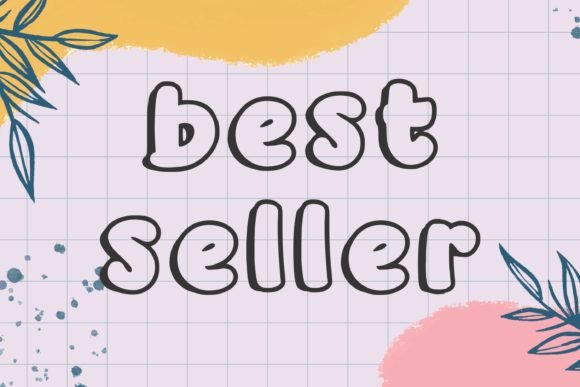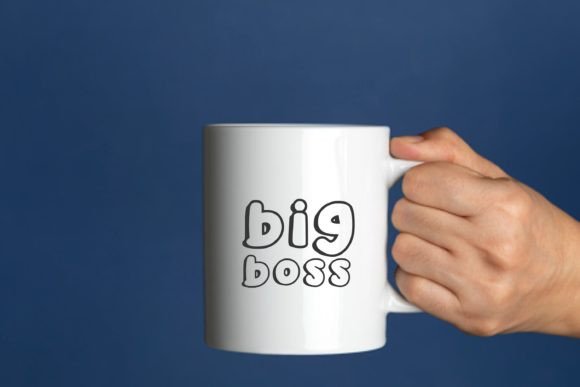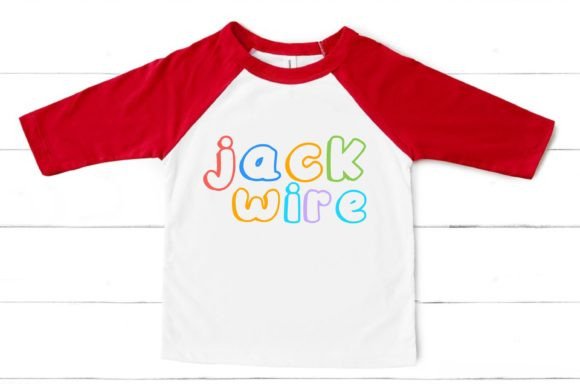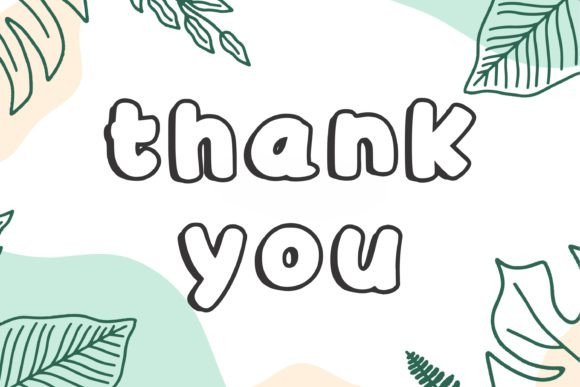
Coco Lemon Font: The Perfect Addition to Your Design Arsenal
Are you a designer or crafter looking for a font that can add a touch of playfulness and cuteness to your creations? Look no further than the Coco Lemon font. This adorable display font is perfect for a variety of design projects, from cartoon-related designs to children’s games and more. In this article, we’ll take a closer look at the Coco Lemon font, its features, and how you can use it to elevate your designs.
What is Coco Lemon Font?
Coco Lemon is a cute and playful display font that is sure to capture the attention of your audience. Its unique and quirky design makes it perfect for designs that require a fun and lighthearted touch. The font is highly versatile and can be used for a wide range of projects, from digital designs to print materials.
Key Features of Coco Lemon Font
So, what makes Coco Lemon font so special? Here are some of its key features:
- Playful Design: Coco Lemon font has a playful and whimsical design that is sure to add a touch of fun to your creations.
- Cute and Quirky: The font’s unique design makes it perfect for designs that require a cute and quirky touch.
- Highly Versatile: Coco Lemon font can be used for a wide range of projects, from digital designs to print materials.
- Easily Readable: Despite its playful design, Coco Lemon font is easily readable, making it perfect for designs that require a clear and concise message.
Use Cases for Coco Lemon Font
So, how can you use Coco Lemon font in your designs? Here are some use cases to get you started:
- Cartoon-Related Designs: Coco Lemon font is perfect for cartoon-related designs, such as character designs, comics, and animations.
- Children’s Games: The font’s playful design makes it perfect for children’s games, such as puzzle books, activity sheets, and more.
- Branding and Packaging: Coco Lemon font can be used for branding and packaging designs that require a fun and playful touch.
- Digital Designs: The font can be used for digital designs, such as social media graphics, blog posts, and more.
Tips for Using Coco Lemon Font
Here are some tips for using Coco Lemon font in your designs:
- Use it Sparingly: While Coco Lemon font is perfect for adding a playful touch to your designs, it’s best to use it sparingly to avoid overwhelming your audience.
- Pair it with Other Fonts: Coco Lemon font can be paired with other fonts to create a unique and visually appealing design.
- Experiment with Colors: The font’s playful design makes it perfect for experimenting with different colors and color combinations.
In conclusion, Coco Lemon font is a cute and playful display font that is perfect for designers and crafters looking to add a touch of fun and playfulness to their creations. Its unique design, versatility, and readability make it perfect for a wide range of projects, from cartoon-related designs to children’s games and more. By following the tips outlined in this article, you can use Coco Lemon font to elevate your designs and create something truly special.
- What type of font is Coco Lemon?: Coco Lemon is a display font, perfect for use in headlines, titles, and other design elements.
- Can I use Coco Lemon font for branding and packaging?: Yes, Coco Lemon font can be used for branding and packaging designs that require a fun and playful touch.